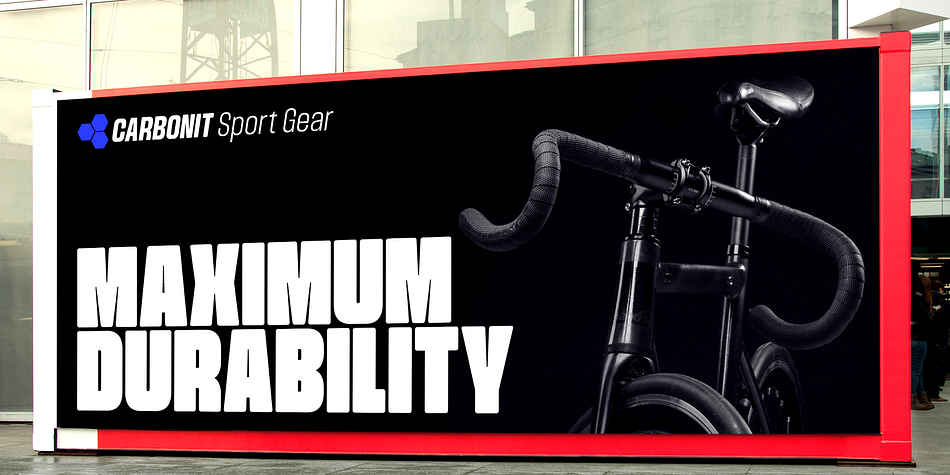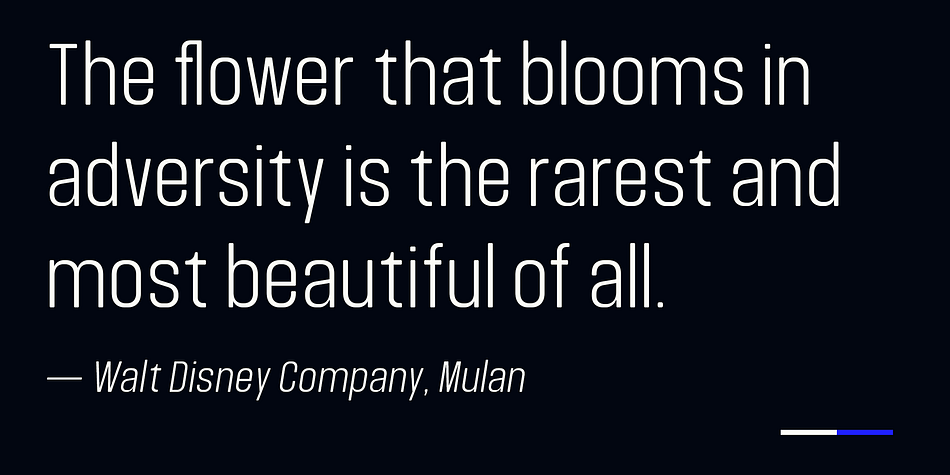
Throne
Designed by -. Sugiyanto, Throne is a sans serif font family. This typeface has eighteen styles and was published by Sign Studio.
Introducing Throne, a sophisticated modern sans serif typeface that seamlessly blends minimalism with versatility. With its semi-condensed design, Throne offers a striking aesthetic that can be dynamically tailored to suit a wide range of creative needs. This exceptional typeface family features nine distinct weights, each available in a unique 9-degree beveled version, providing designers with the flexibility to craft compelling branding elements that stand out.
Throne’s elegant and refined style ensures high legibility, making it ideal for both print and digital applications. Whether you’re designing a sleek website, an eye-catching poster, or a memorable logo, Throne adapts effortlessly, enhancing your message with a contemporary flair. Plus, its extensive language support—covering over 90 languages—ensures that your designs can reach a global audience without sacrificing style.
Unlock the potential of your projects with Throne, where modern design meets functionality. Experience the perfect balance of sophistication and clarity that will leave a lasting impression.